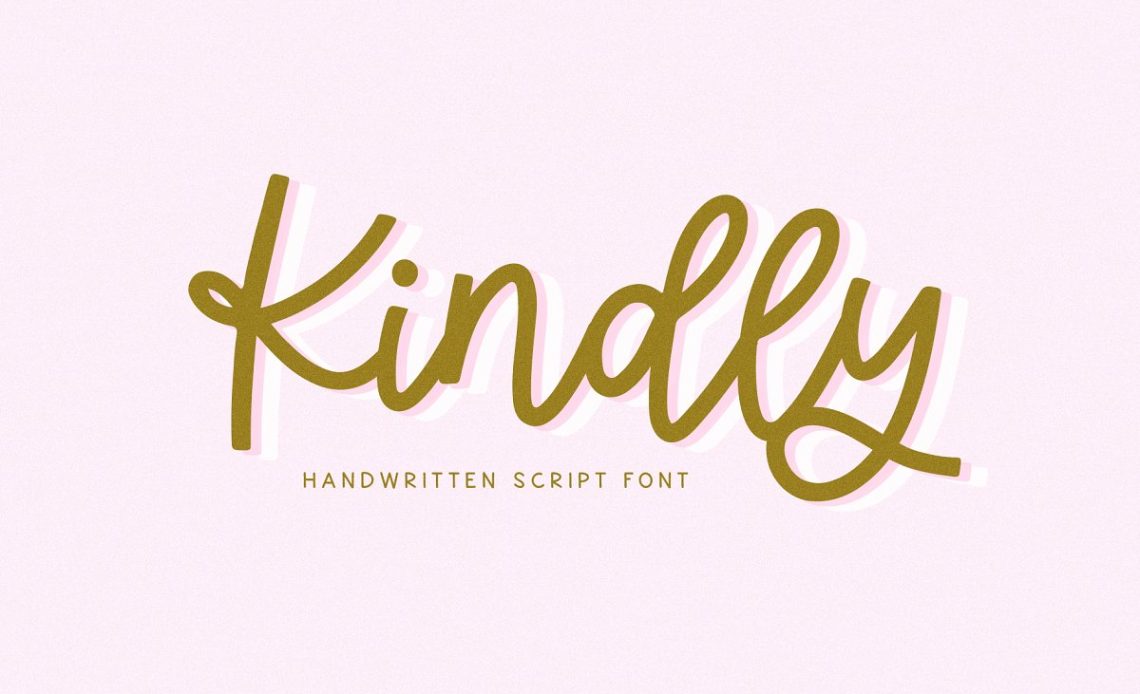
Looking for the perfect script font to elevate your projects? Look no further than Kindly, the stunning handwritten script font from Kaitlynn Albani. This font is the best choice for anyone looking for a font that will make their Cricut stencils stand out from the crowd.
Kindly is a monoline script font that is perfect for a wide range of applications. Whether you're creating branding materials, crafting personalized gifts, designing logos, or creating eye-catching wedding decor, Kindly is the perfect choice. With its clean, elegant lines and modern, minimalist design, this font will elevate any project you undertake.
But Kindly is more than just a pretty face. This versatile font is also perfect for use with Procreate, allowing you to create stunning digital designs with ease. And with OTF/TTF included, you'll have everything you need to start creating right away.